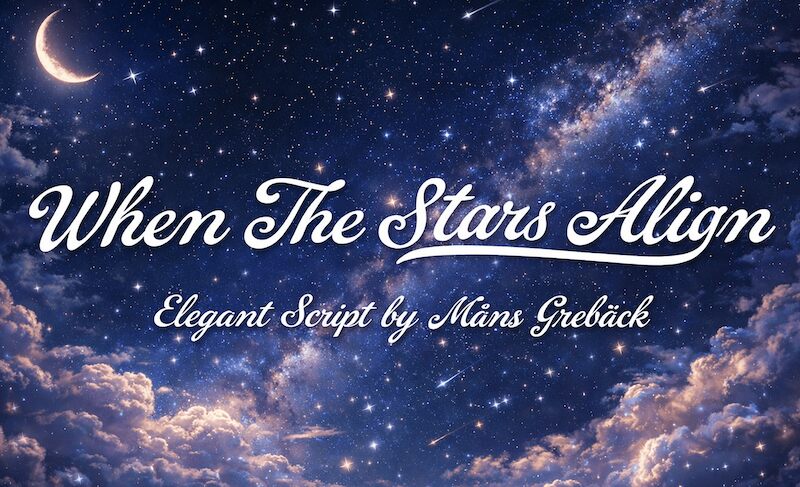
When The Stars Align font
When The Stars Align is an elegant script that offers a calm, luminous presence. Its letterforms flow smoothly, featuring gentle contrast and carefully shaped curves that instill a sense of balance and intention.
Subtle swashes and soft joins contribute to a friendly character, enhancing its appeal for various creative projects.